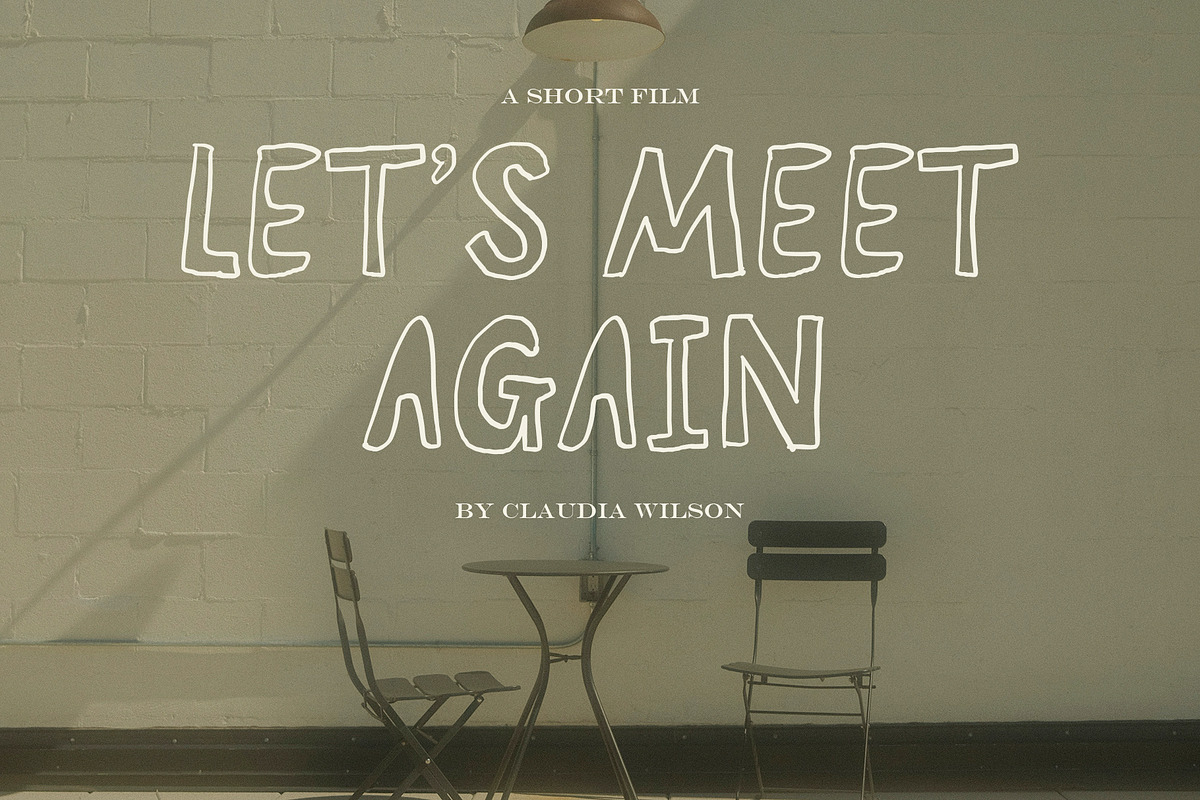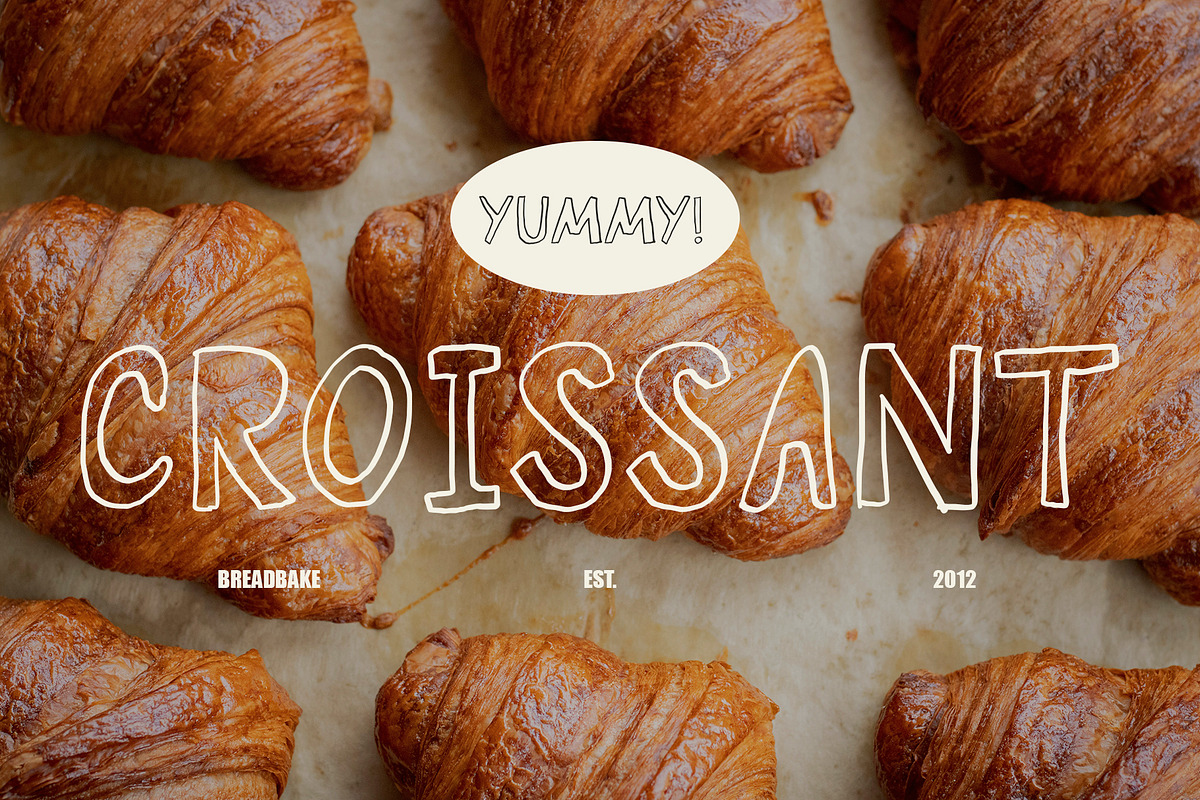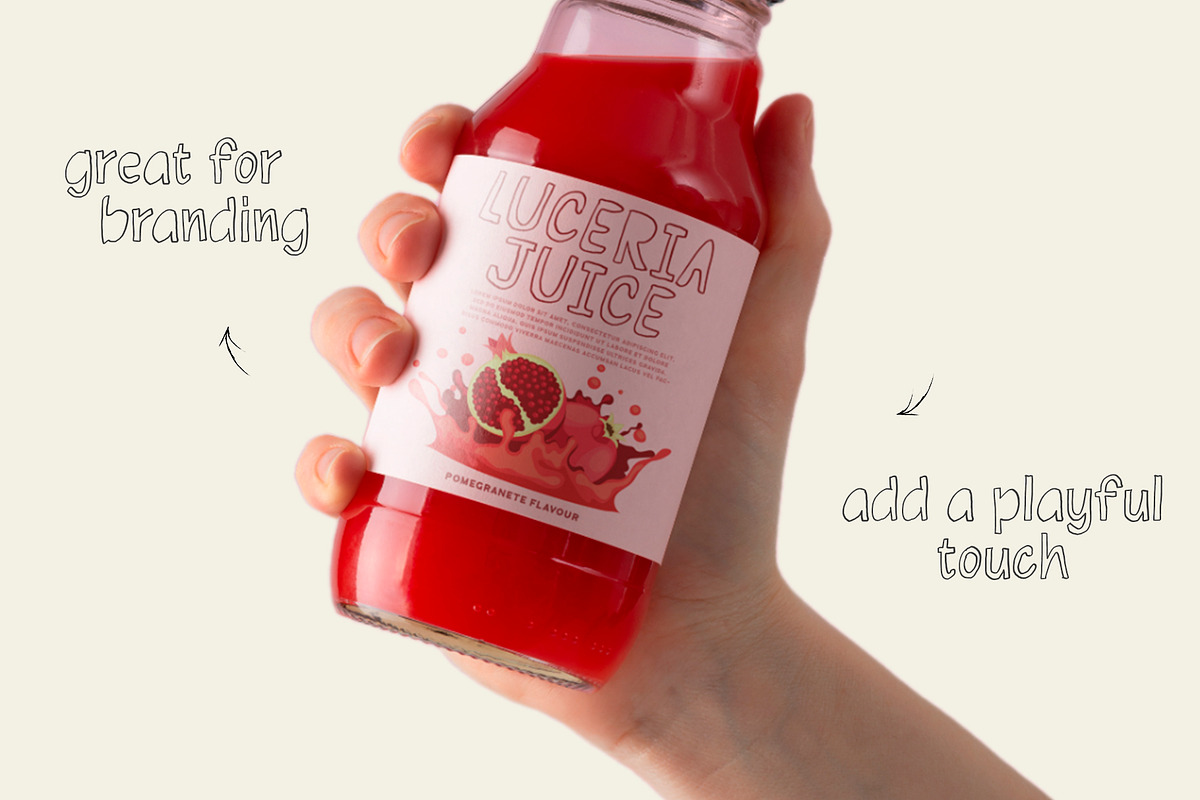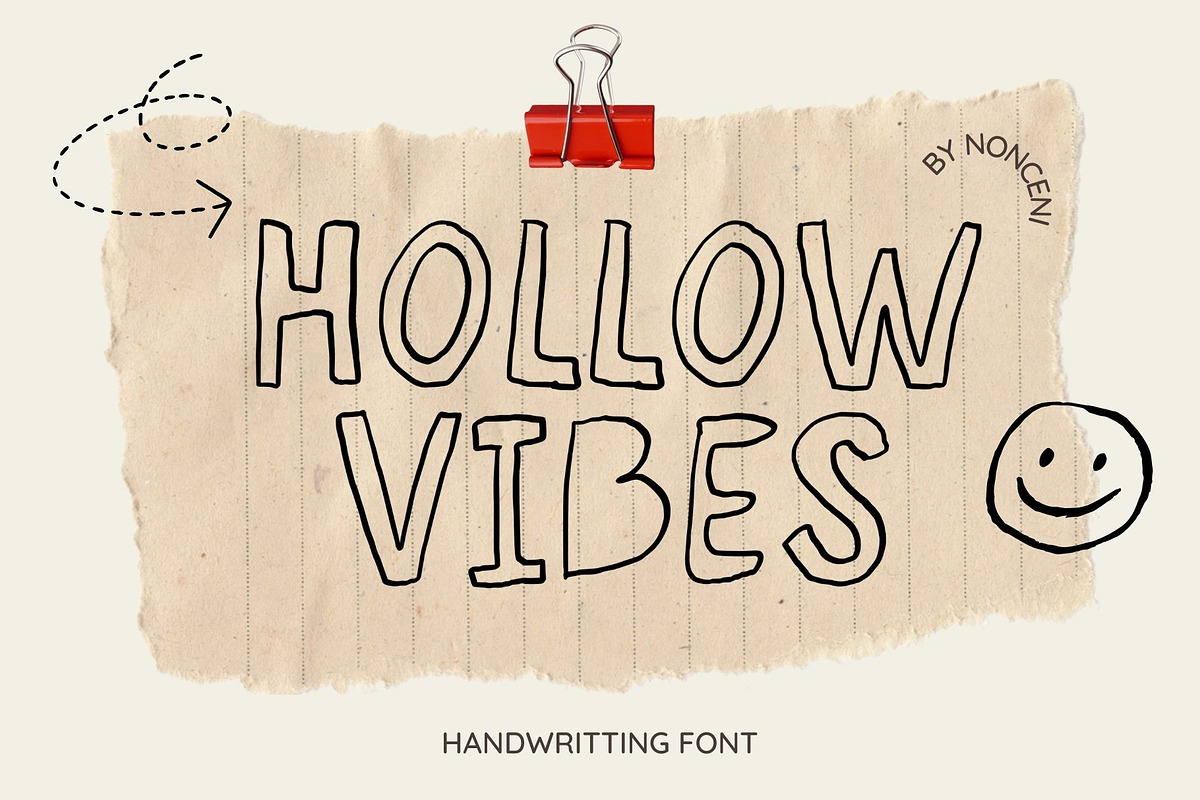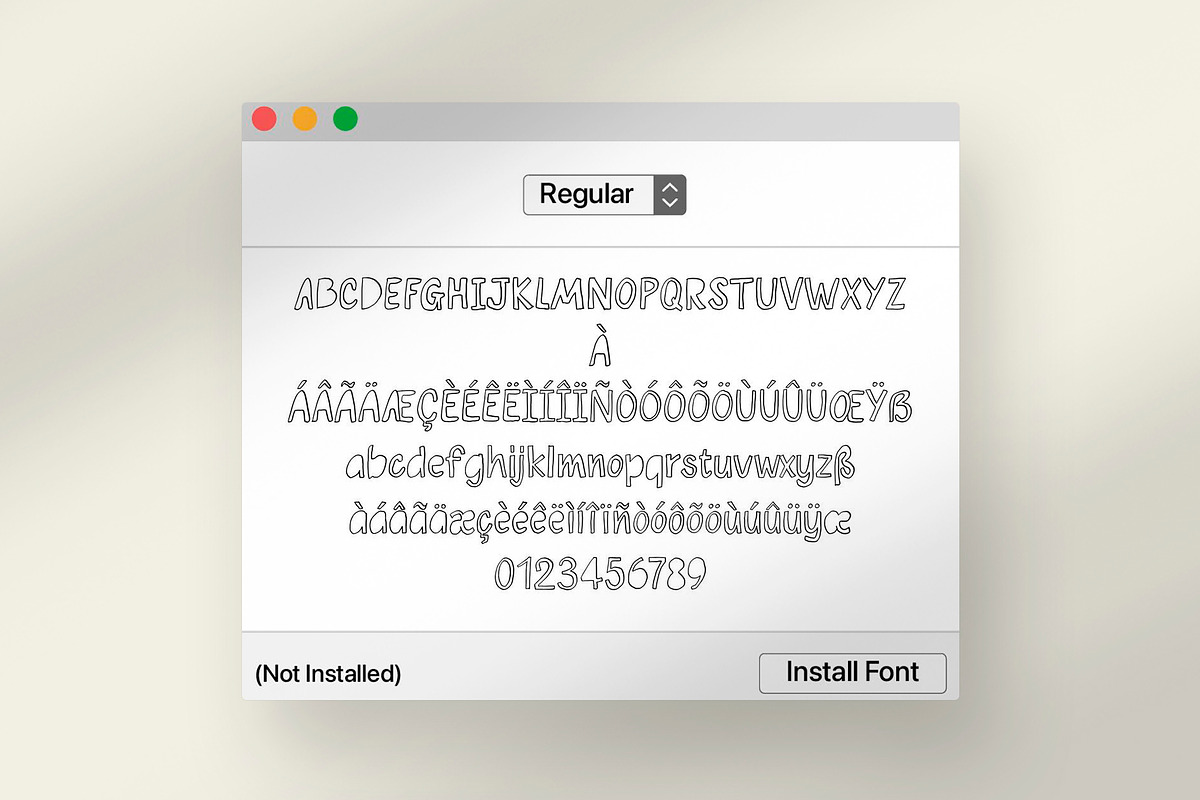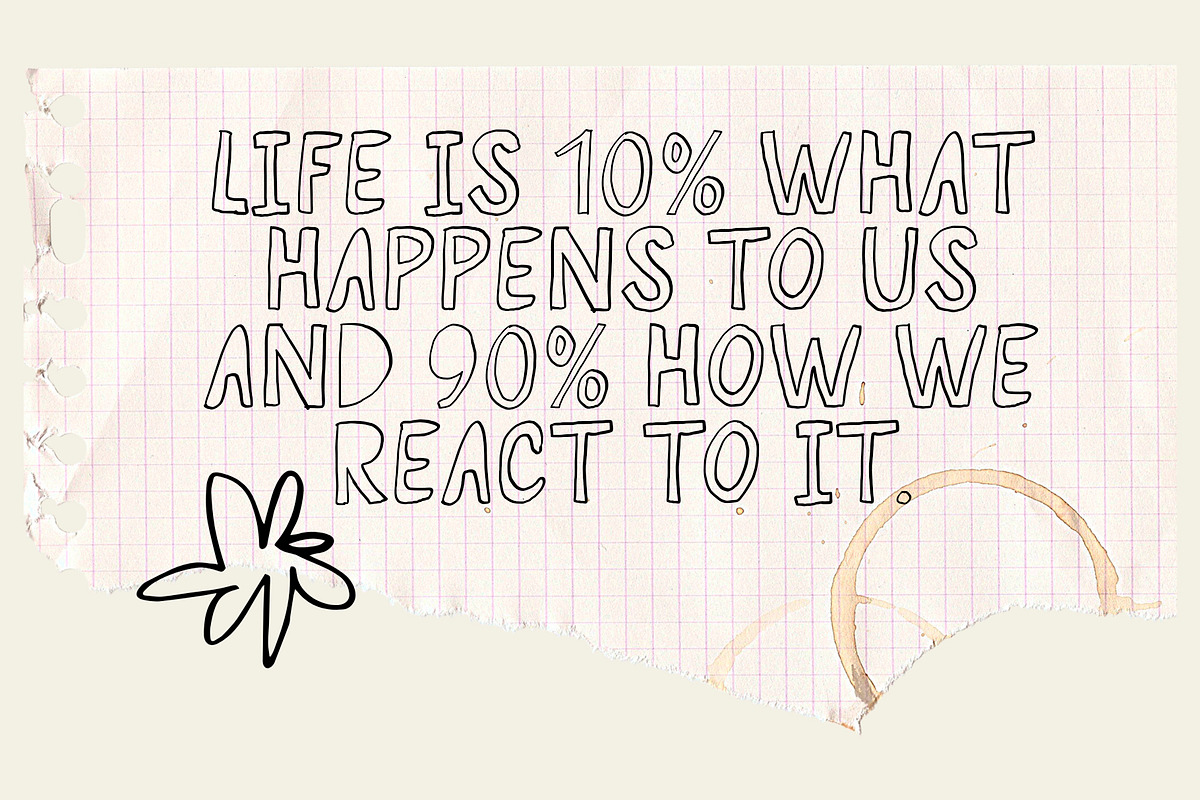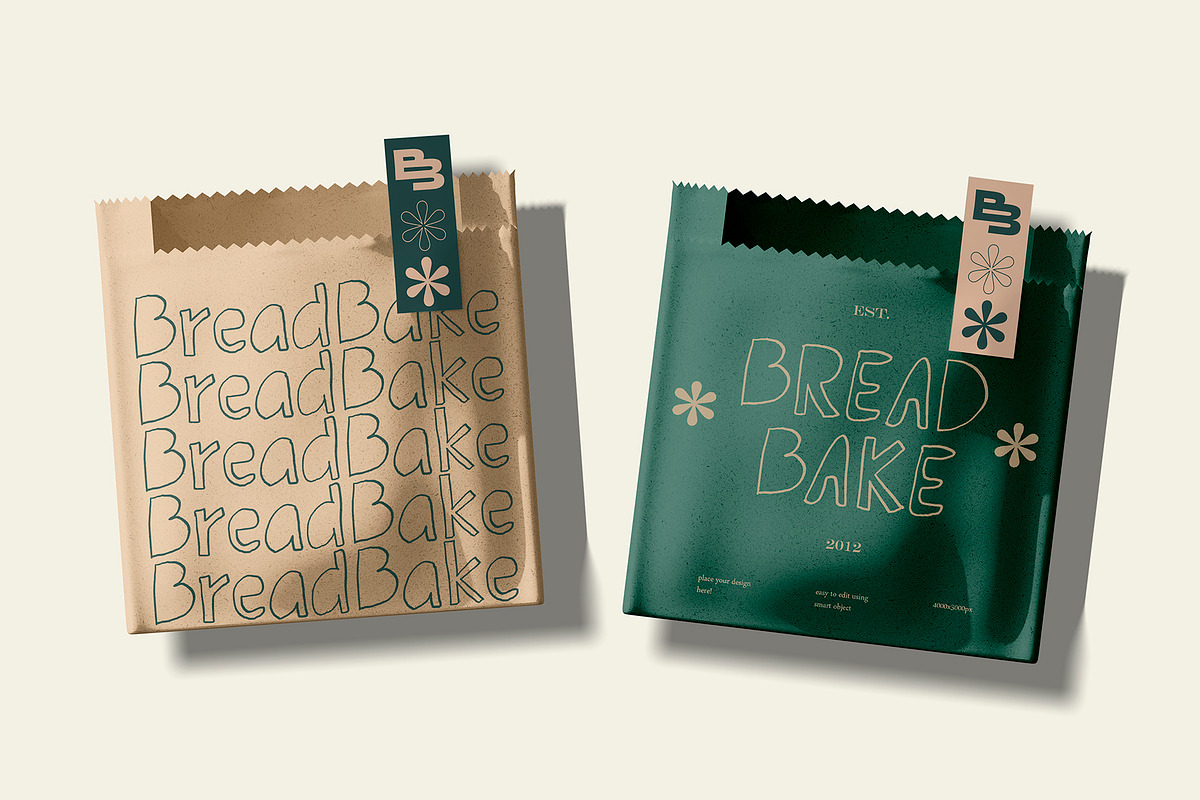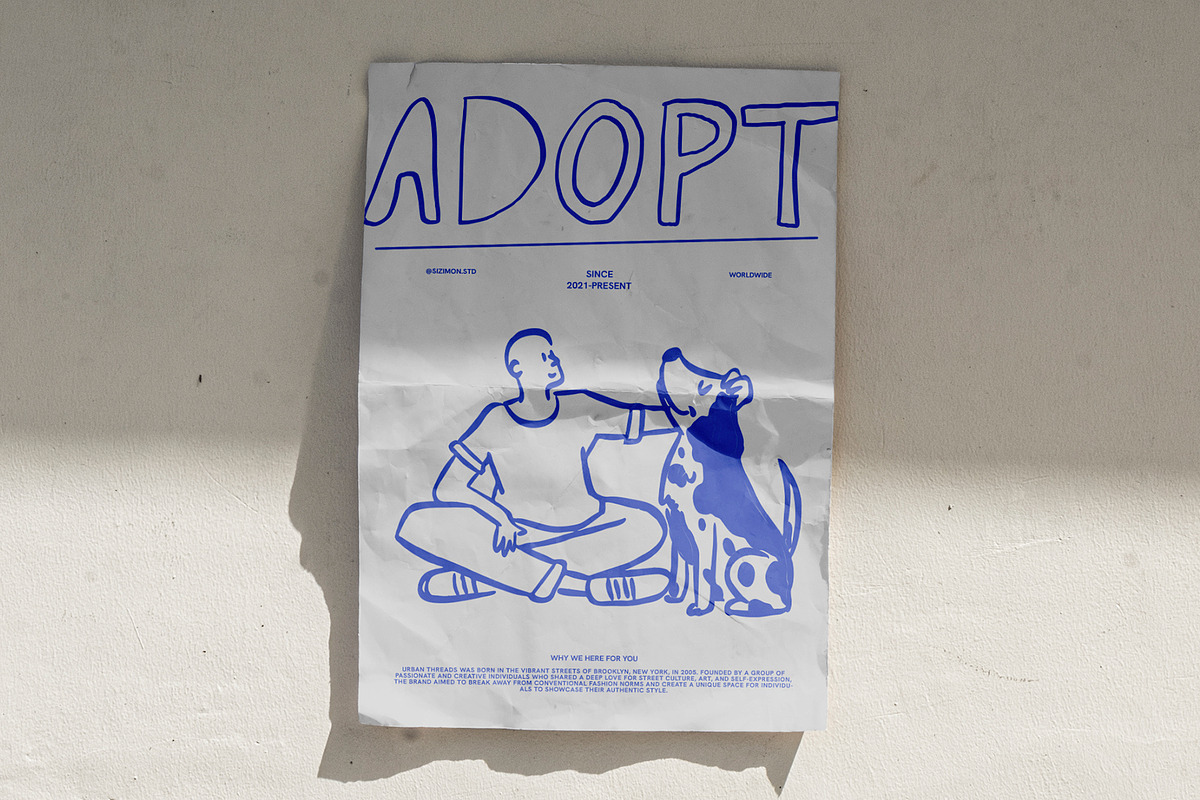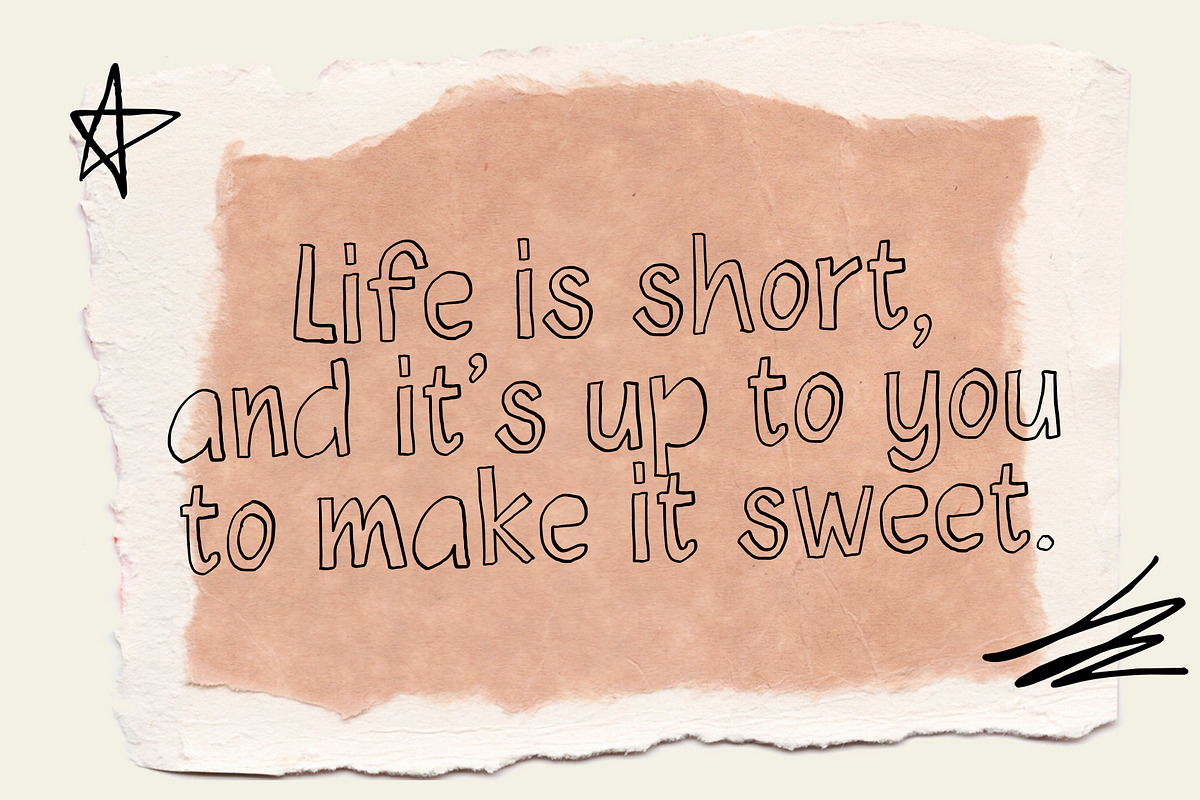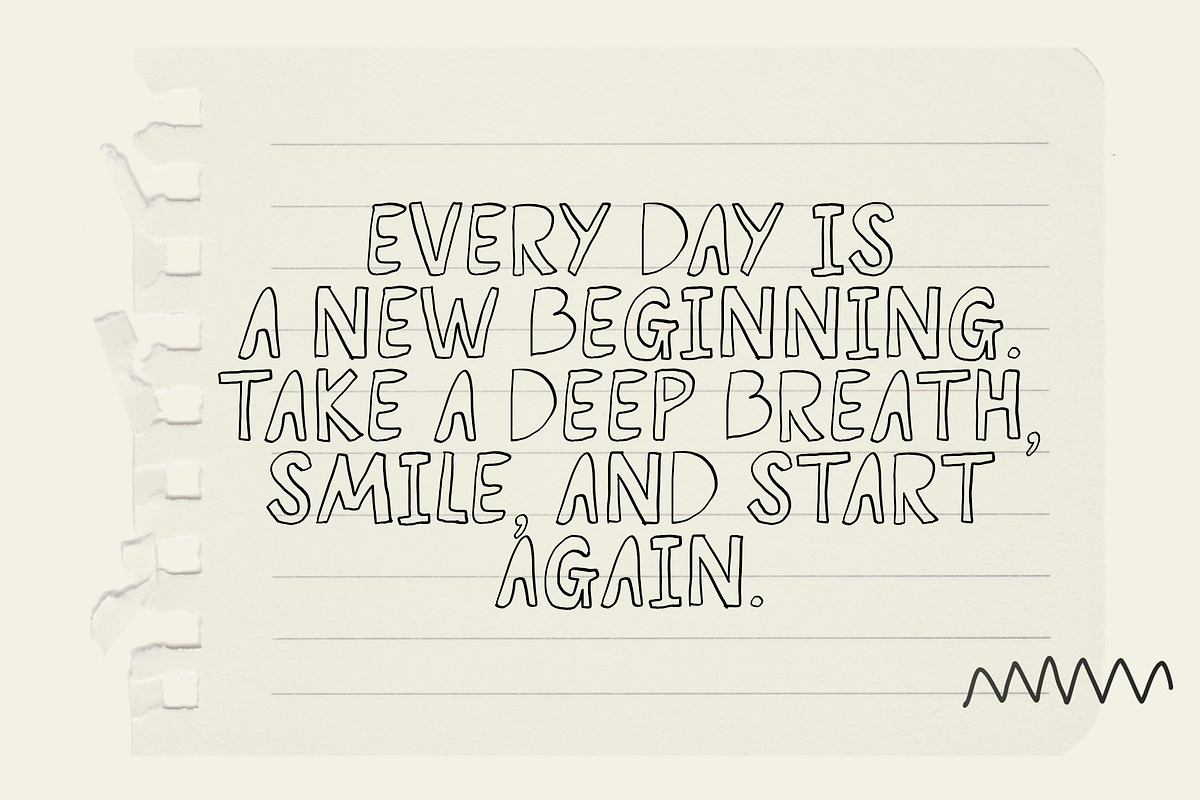
HOLLOW VIBES CUTE QUIRKY FONT
Meet Hollow Vibes, a quirky handwritten font that brings personality and charm to your designs. Its playful yet versatile style makes it perfect for everything from invitations, greeting cards, packaging, and more. Add a unique and cheerful touch to magazines, labels, stationery, wedding designs, or any project that needs a dose of creativity and fun. Hollow Vibes is the perfect choice for adding character and flair to your work!